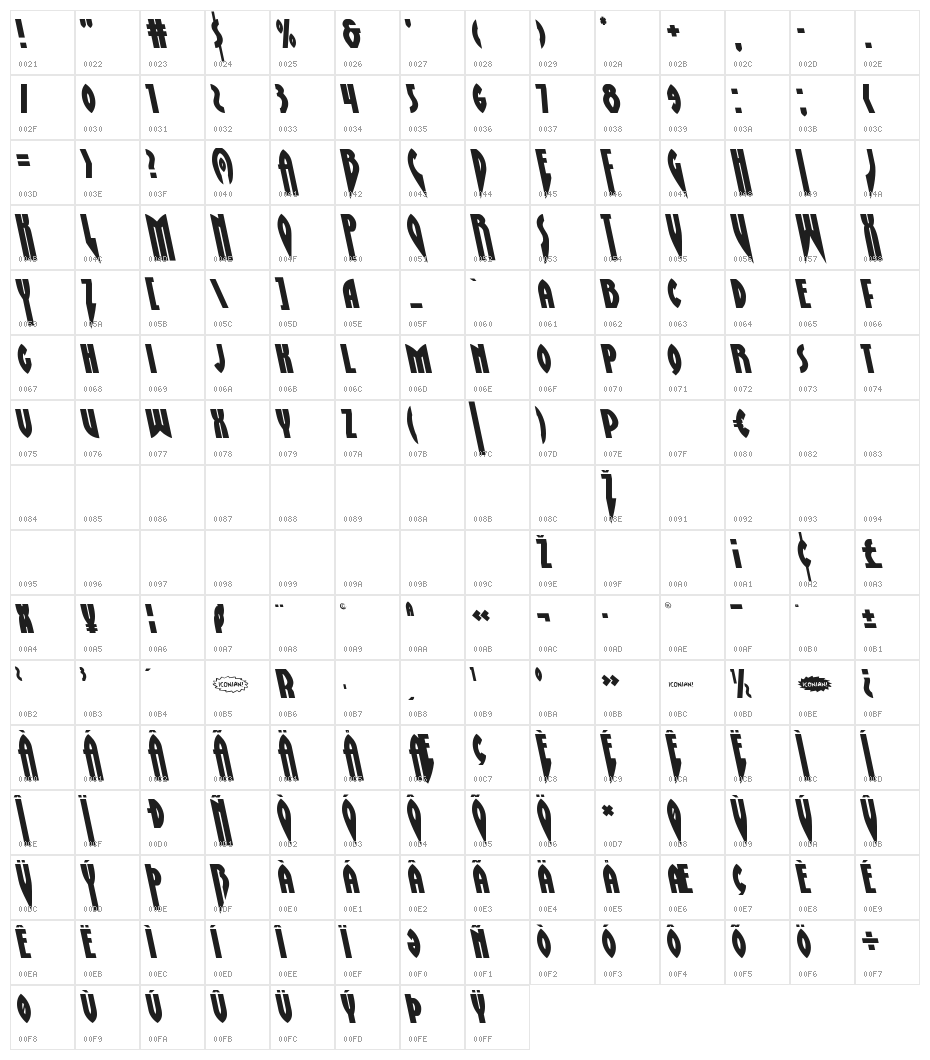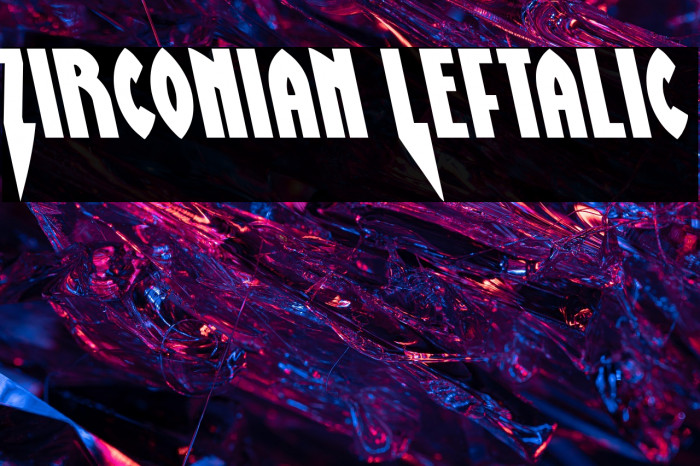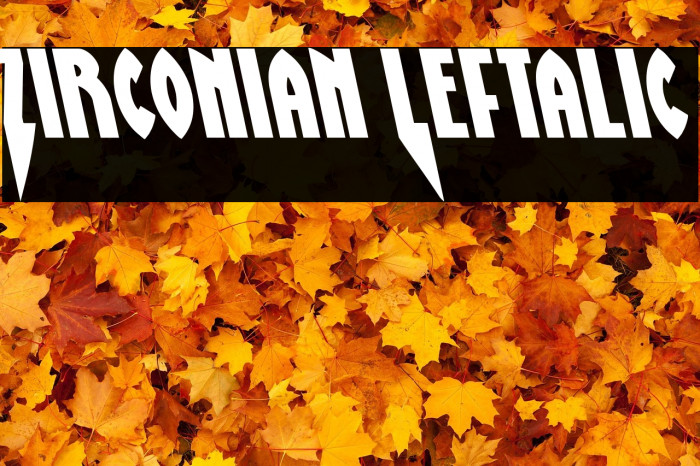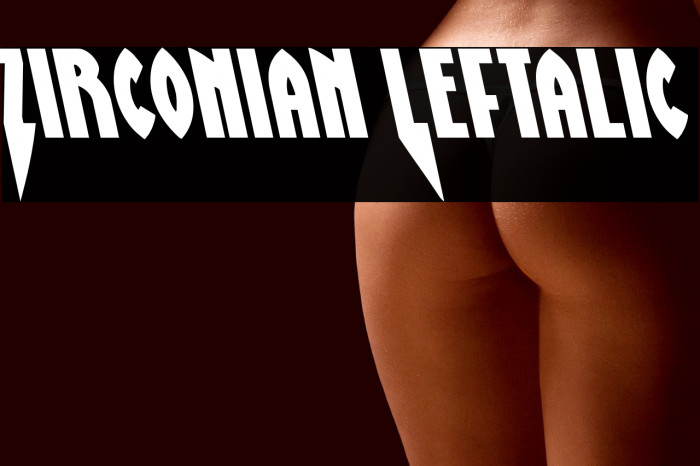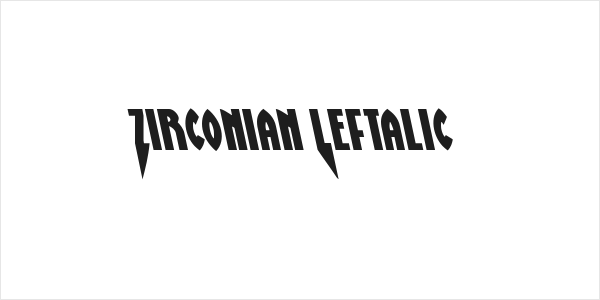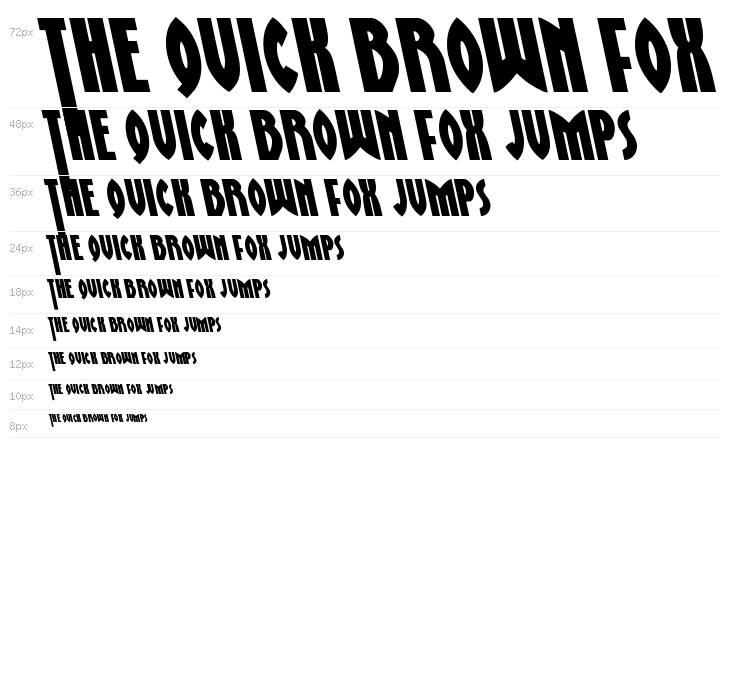
Zirconian Leftalic Font
Zirconian Leftalic Description
This font features a bold and dynamic style with a strong leftward slant, giving it a sense of motion and energy. The characters are wide and have a distinct geometric shape, with sharp angles and a solid presence. The uppercase and lowercase letters maintain a consistent style, while the numbers and special characters complement the overall design. The font's unique appearance makes it stand out, making it suitable for eye-catching designs.
| Proposed Projects | Ideal for posters, logos, and branding projects that require a bold and dynamic look. |